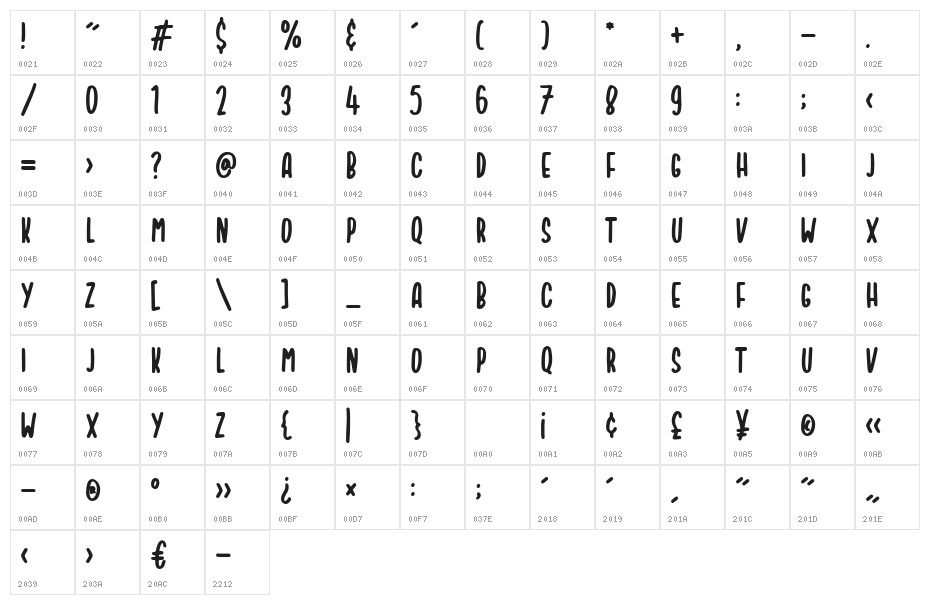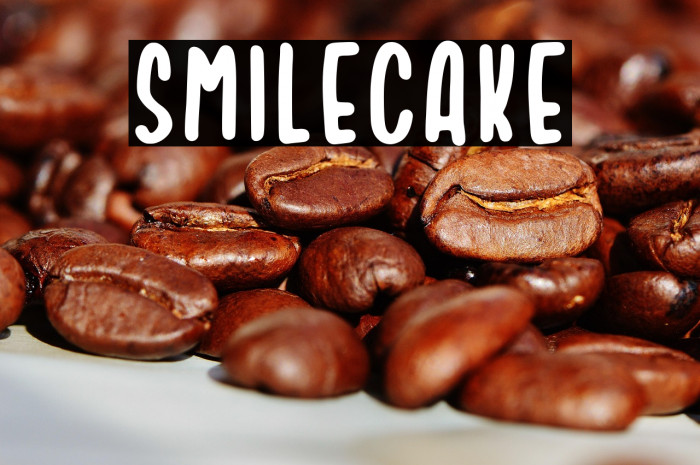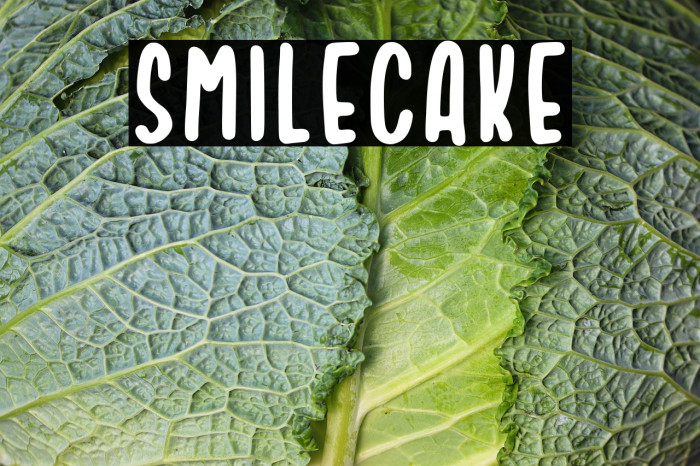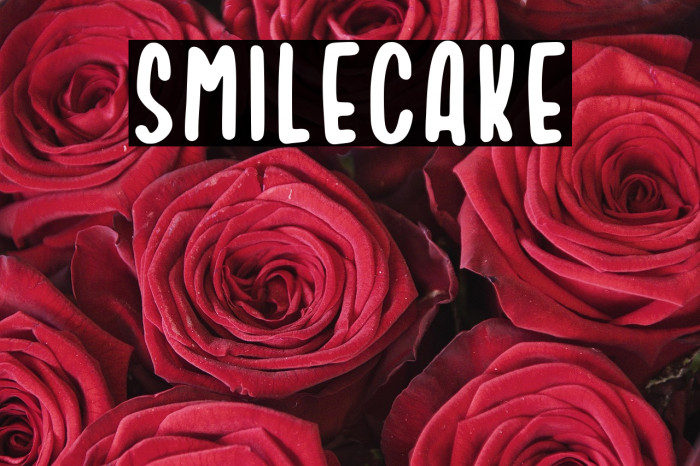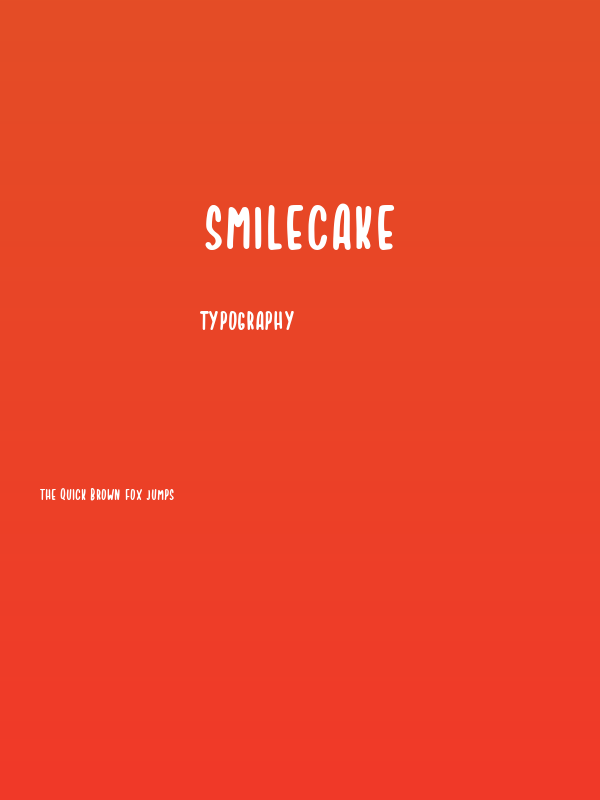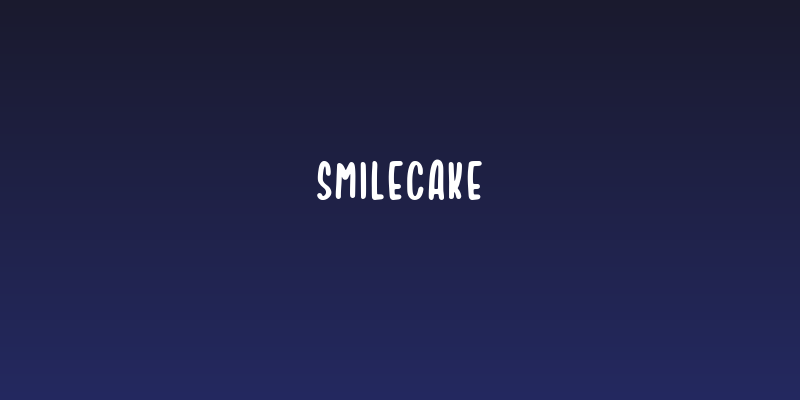
Smilecake Font
Smilecake Description
This playful and bold font features rounded, hand-drawn characters that exude a friendly and approachable vibe. The letters are slightly irregular, adding a whimsical touch that makes it perfect for creative projects. Its thick strokes and consistent weight provide excellent readability, while the rounded edges soften its appearance, making it suitable for a variety of informal and fun applications. The font includes a full set of uppercase and lowercase letters, numbers, and a selection of special characters, ensuring versatility in design.
| Overall Style | Playful |
| Use Case | Logos, Headlines, Posters |
| Proposed Projects | Ideal for children's books, playful branding, greeting cards, and social media graphics. |